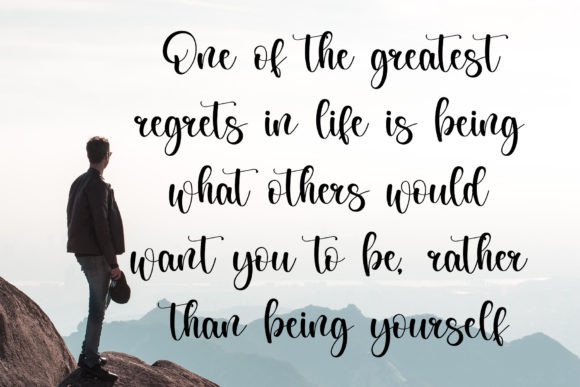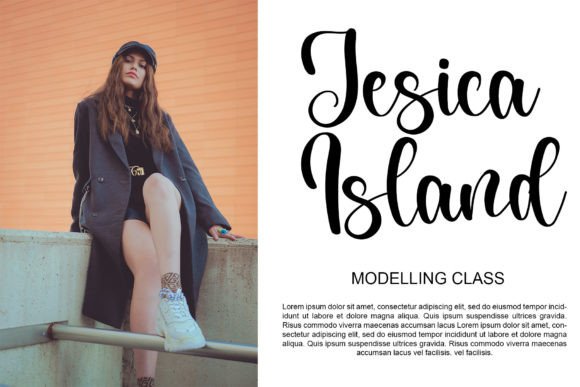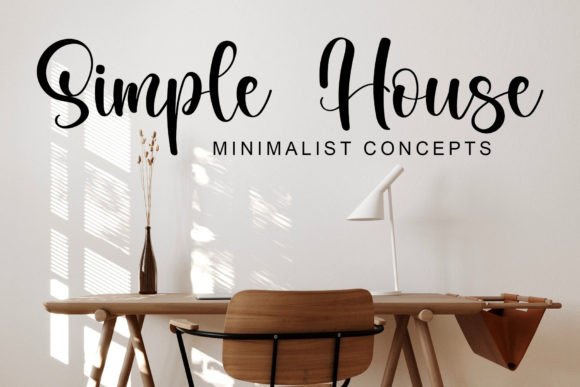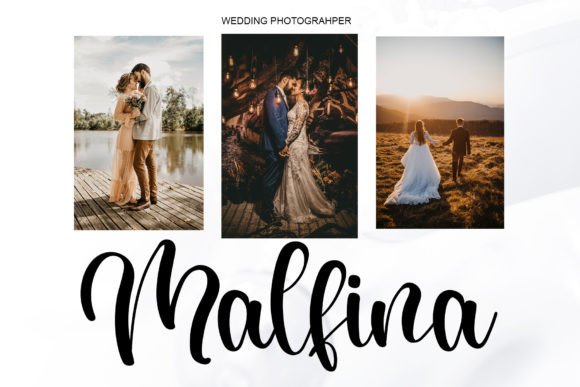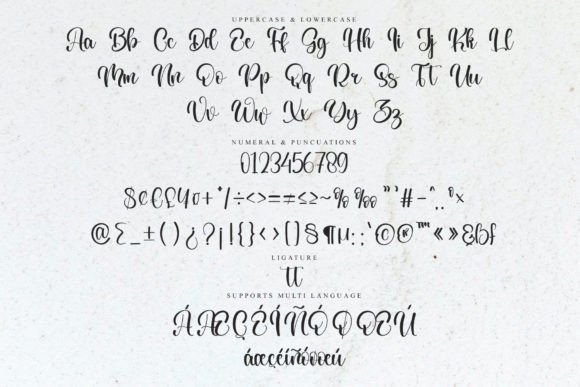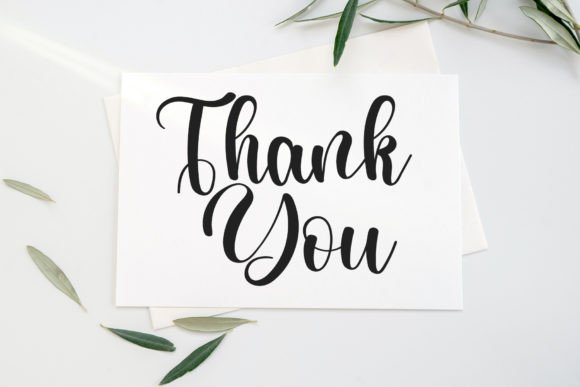
Hardest Font
What Is Hardest Font?
Hardest Font is a charming handwritten script designed to bring sophistication, warmth, and elegance to your creative projects. Each letter features smooth curves and delicate strokes that create a graceful and refined look. Whether you need to convey romance, authenticity, or artistic flair, Hardest Font is the perfect choice to elevate your designs.
Its handcrafted style feels personal and inviting, making it an ideal option for projects that need an emotional touch and timeless appeal.
Hardest Font is versatile enough to shine across a variety of applications. For example, it’s a beautiful fit for wedding invitations and save-the-date cards. The flowing, romantic letterforms set the perfect tone for life’s most special celebrations, ensuring your stationery feels unforgettable.
Thank you cards and greeting cards also benefit from Hardest’s personal touch. Whether you’re expressing gratitude or sharing well wishes, this font helps your words feel sincere and heartfelt.
In inspirational quotes and social media posts, Hardest Font adds a refined look that makes your content stand out. The balanced proportions and elegant strokes draw attention to your message and enhance its impact.
For branding, Hardest offers a unique blend of sophistication and creativity. From logos and business cards to packaging and marketing materials, this script adds a memorable, artistic edge that helps your brand look polished and distinctive.
It’s equally at home in digital and print designs, making it a reliable choice for any project that needs an extra dose of charm.
Why Should You Choose Hardest Font?
One of Hardest Font’s biggest strengths is its readability. Even with its ornate style, each letter remains clear and legible at any size. Whether you’re designing small labels or large headlines, your text will always look professional and easy to read.
The font also pairs seamlessly with modern serif or sans-serif typefaces, helping you create balanced, visually appealing layouts. This flexibility allows you to adapt your designs to different styles while maintaining a cohesive feel.
Designers appreciate that each glyph is carefully crafted, saving time while delivering polished results.
Hardest Font brings elegance, sincerity, and warmth to any project. Its flowing strokes and handcrafted details create an emotional connection with your audience, making your work feel more meaningful and memorable.
Even minimalist layouts gain sophistication when you use this font. It adds personality without overpowering your design, striking the perfect balance between charm and refinement.
Using a high-quality handwritten script like Hardest shows your commitment to thoughtful design. Clients and customers will notice the extra care and attention you put into your work, helping you build trust and credibility.
Hardest Font is more than just an elegant script—it’s a versatile design tool that helps you communicate ideas with style and authenticity. From weddings and branding to heartfelt messages and social media graphics, this font adapts effortlessly to countless applications and always leaves a lasting impression.